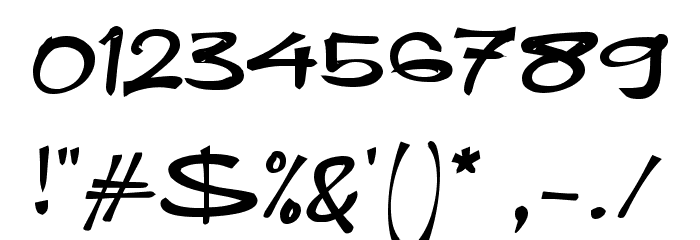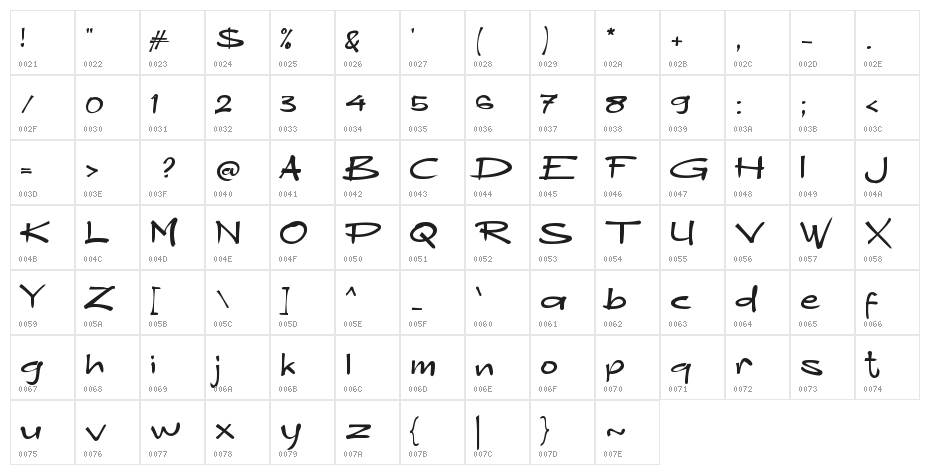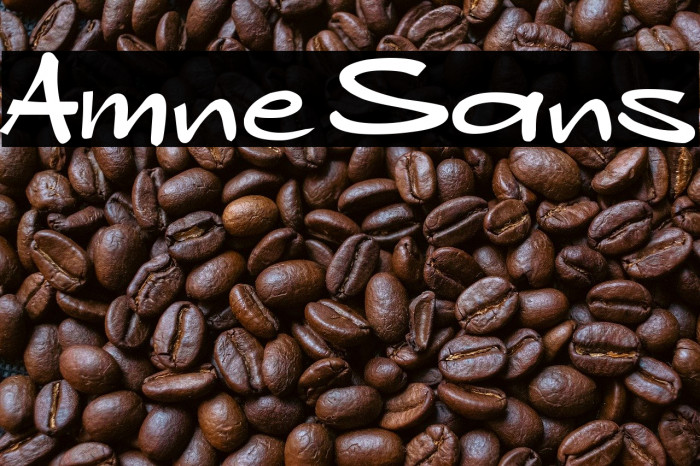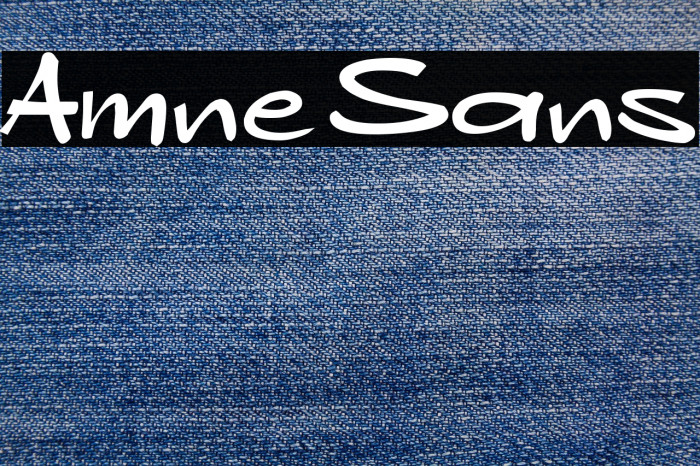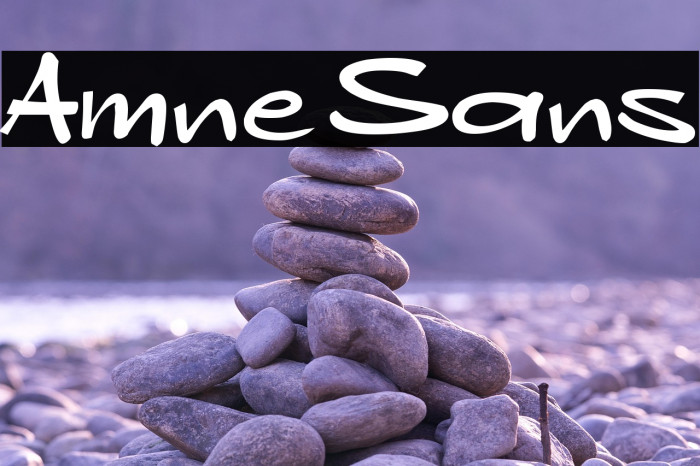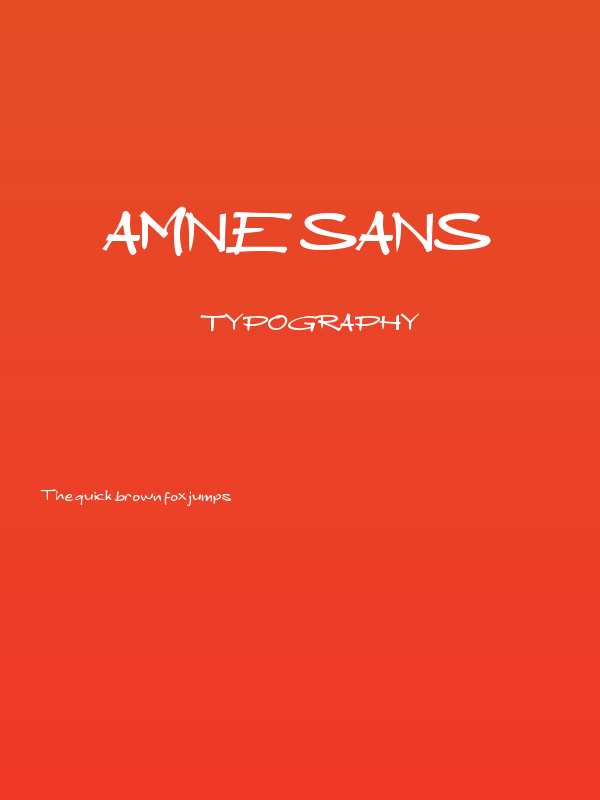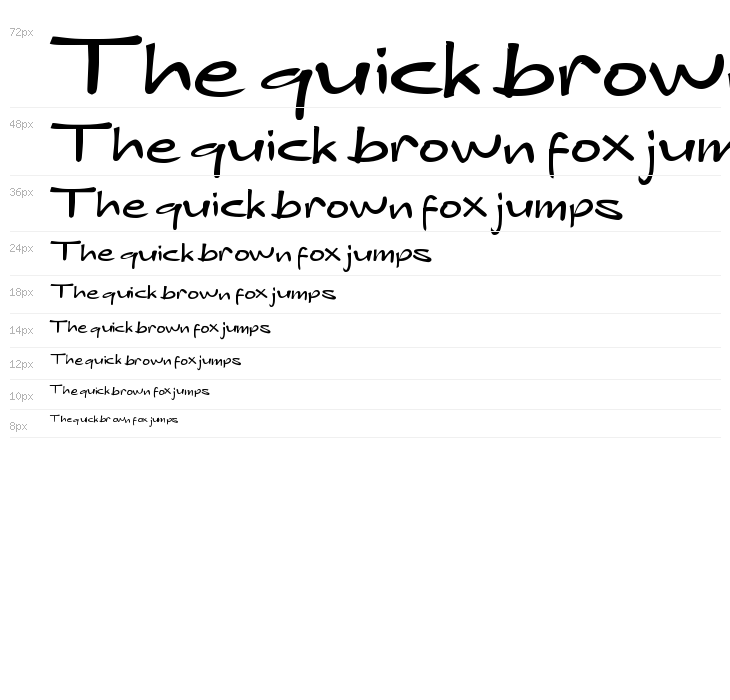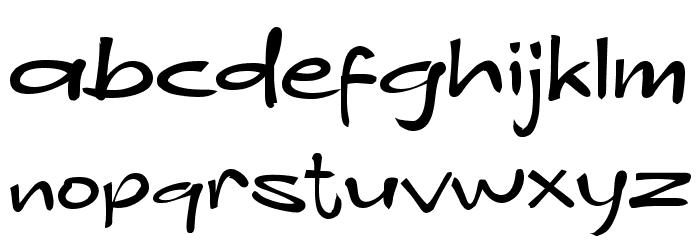
Amne Sans Font
Amne Sans Description
This font exhibits a playful and dynamic style, characterized by its handwritten appearance. The letters have a casual, flowing form with a slight slant, giving it an energetic and informal vibe. The strokes are bold and slightly irregular, adding to its charm and uniqueness. The uppercase and lowercase letters maintain a consistent style, with rounded edges and a smooth flow. Numbers and special characters are designed to match the overall aesthetic, ensuring a cohesive look across all text elements.
| Proposed Projects | Ideal for creative projects such as greeting cards, invitations, posters, and branding materials that require a personal touch. |